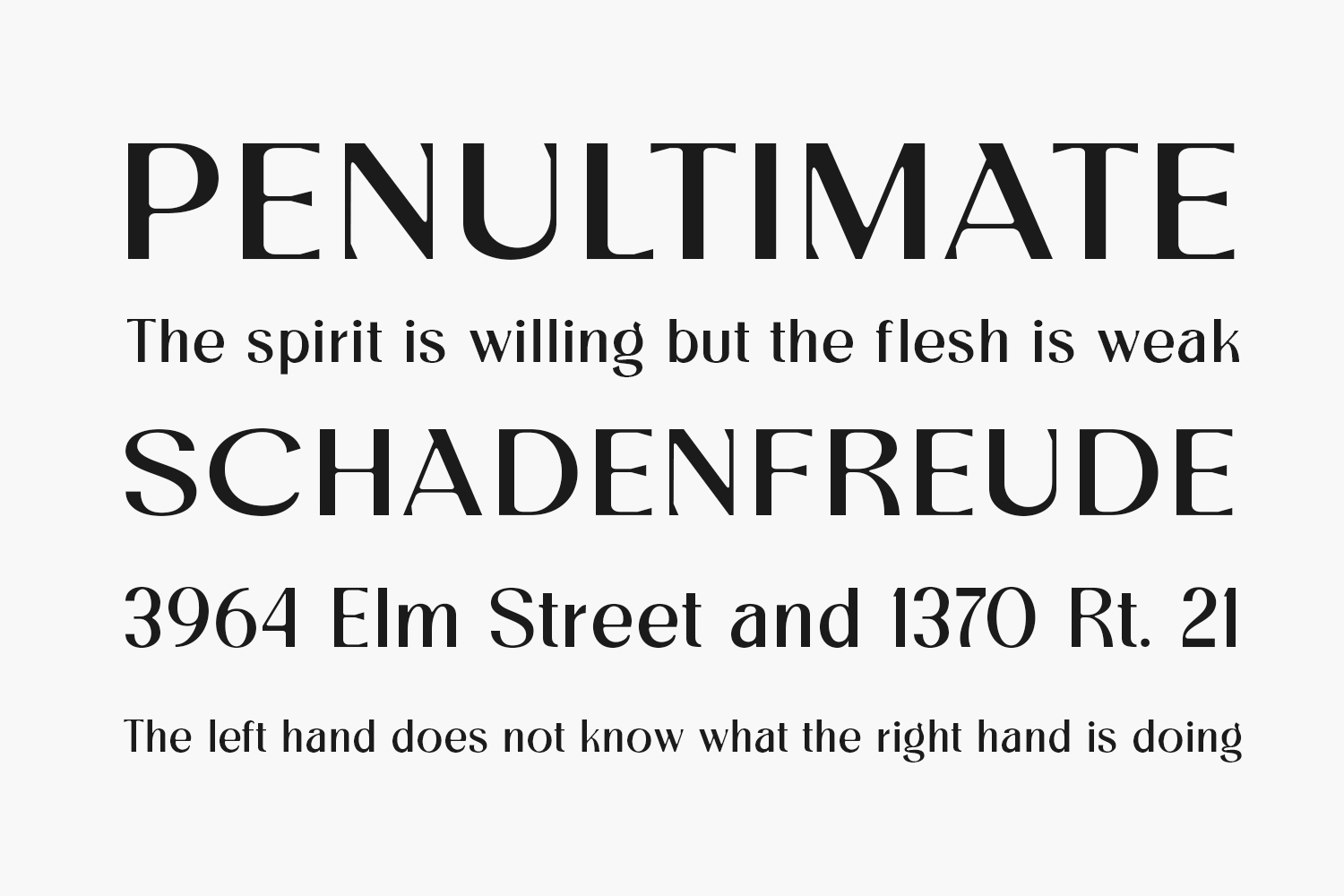
Magnitude Free Font is a stylish display font with a unique letterform. The style makes this font looks great and stand out for titles, headlines, logos, invitations, magazines, or more. Magnitude Free Font was designed by Letterhend Studio and is free for personal use only. Please purchase the full version for commercial use.